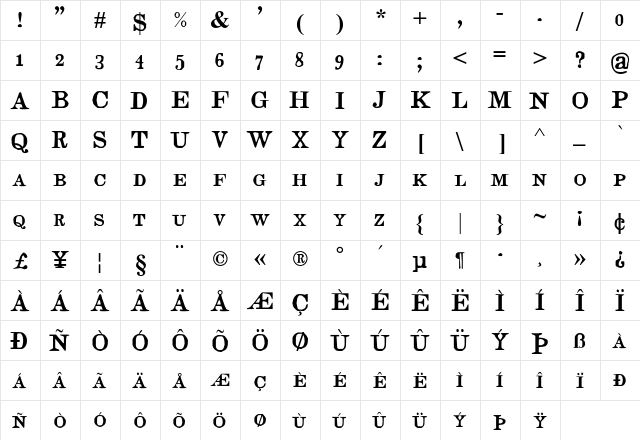
Judges Regular
Design Context for Judges Typeface
Judges offers clean, dependable letterforms without strong stylistic allegiance, making it a practical choice for designers who need flexibility.